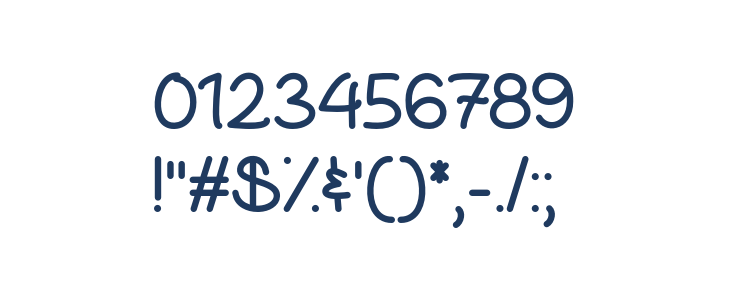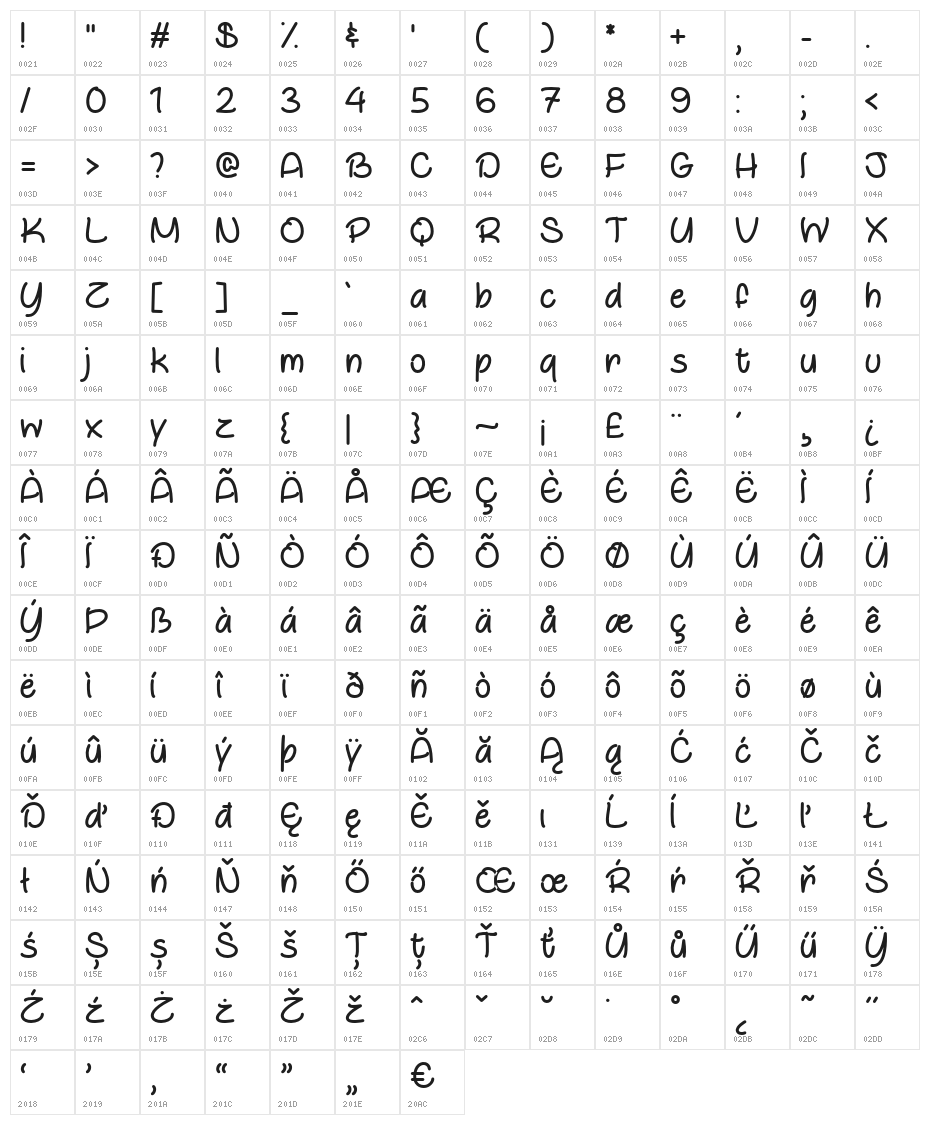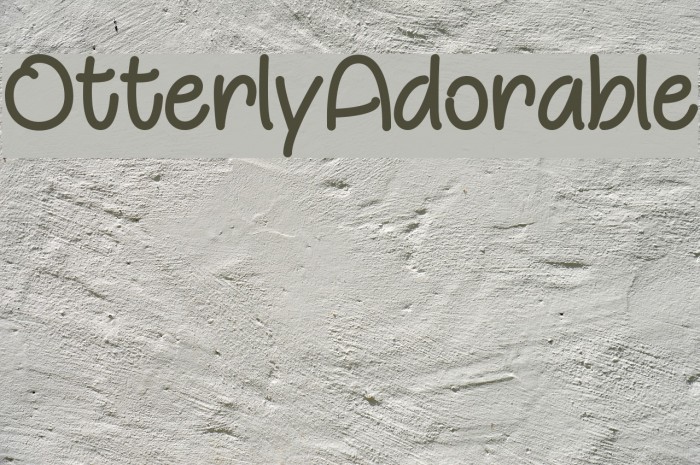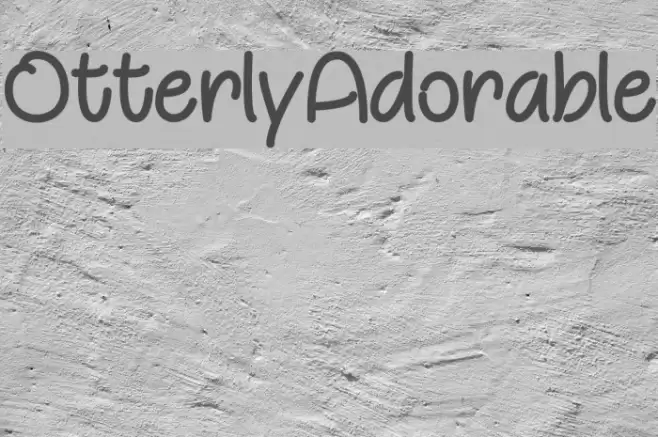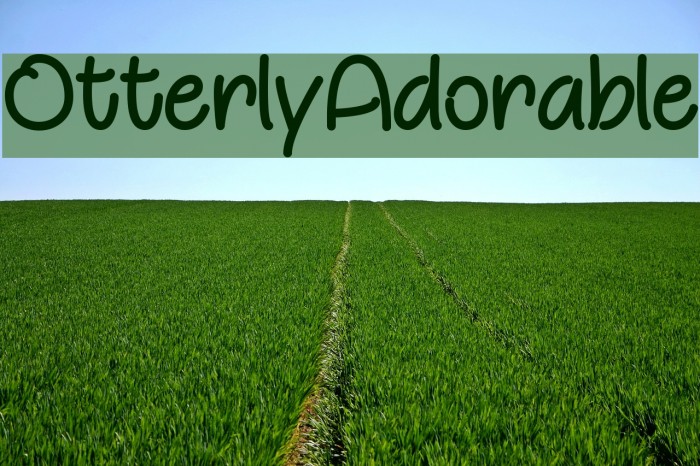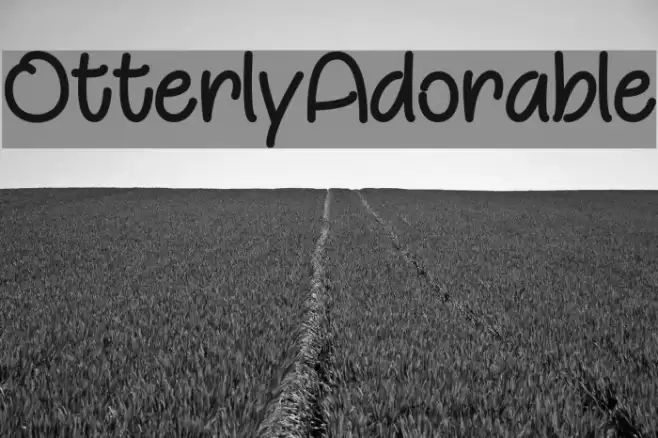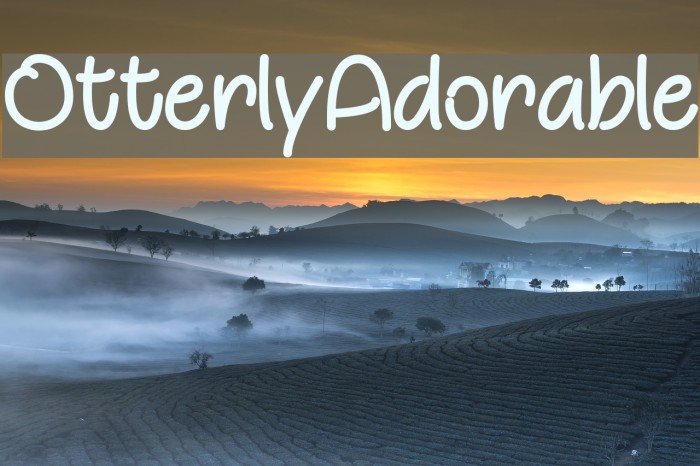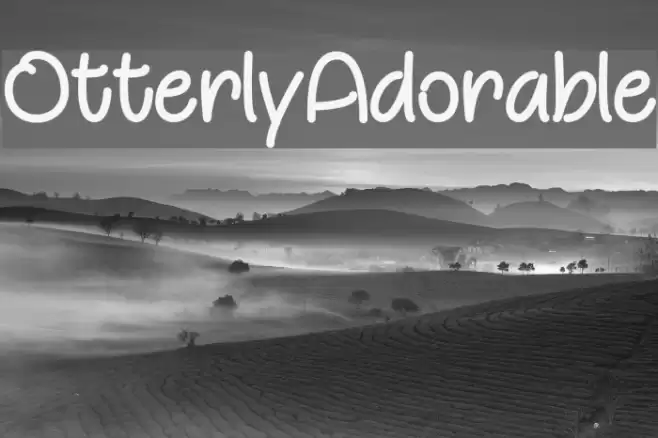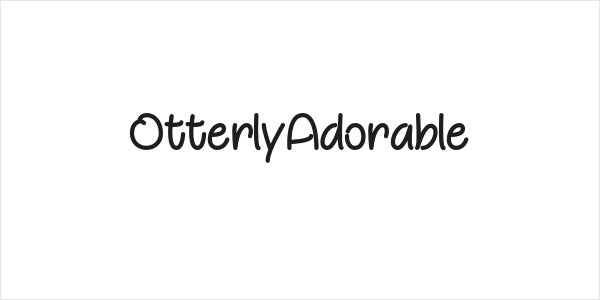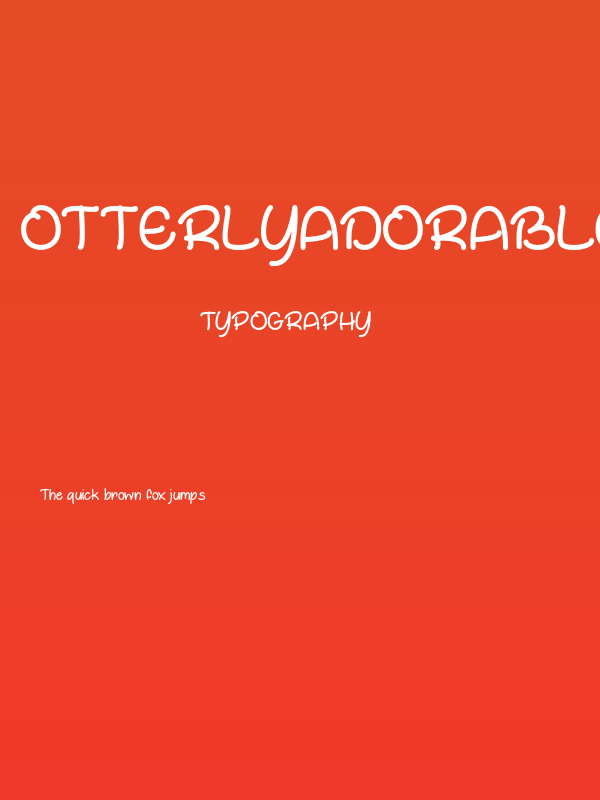
OtterlyAdorable Font
This playful and whimsical font features rounded, bubbly characters that exude a sense of fun and friendliness. The letters are bold and slightly irregular, giving them a hand-drawn appearance. The uppercase and lowercase letters maintain a consistent style, with smooth curves and a casual feel. The numbers and special characters are equally playful, making this font suitable for projects that require a touch of personality and charm. Its unique style makes it stand out, while still being highly readable.
Overall StylePlayful
Use CaseHeadlines, Logos, Creative projects
Proposed ProjectsIdeal for children's books, playful branding, greeting cards, and creative posters.